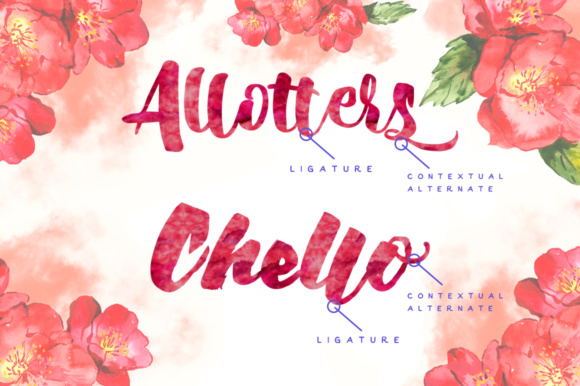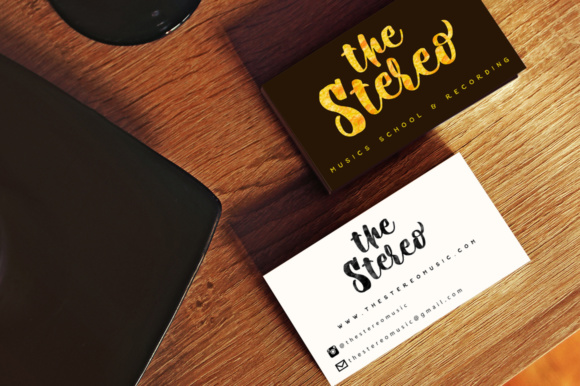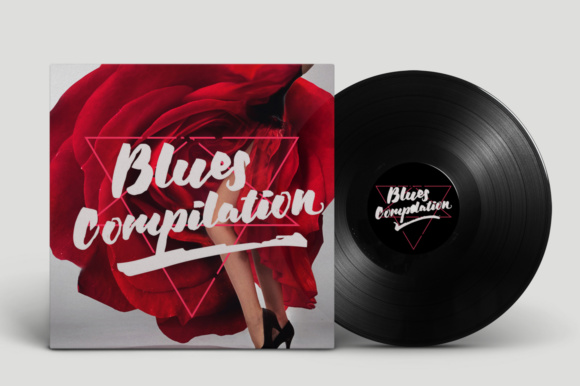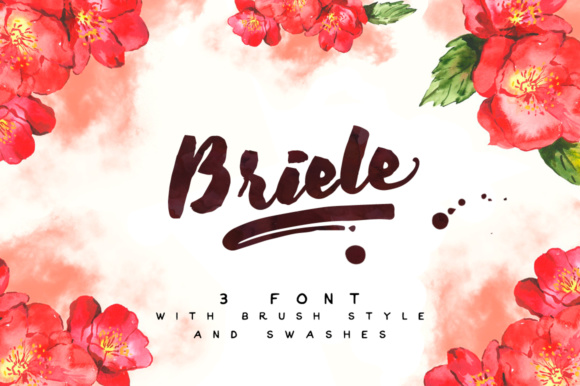
Introducing Briele Font: Elevate Your Designs with Elegance and Versatility
Are you a designer or crafter looking for a font that can add a touch of sophistication and elegance to your projects? Look no further than the Briele Font, an incredibly versatile brush font pack that is sure to take your designs to the next level. With its three unique styles and over 23 elegant swashes, Briele Font is the perfect choice for anyone looking to add a striking look to their creations.
What Makes Briele Font So Special?
Briele Font is more than just a font – it’s a comprehensive design tool that offers a range of possibilities for creative expression. Here are just a few of the features that make Briele Font stand out:
- Three Unique Styles: Briele Font comes with three distinct styles, each with its own character and charm. Whether you’re looking for a classic and elegant look or something more modern and bold, Briele Font has got you covered.
- Over 23 Elegant Swashes: Add a touch of sophistication to your designs with Briele Font’s extensive range of swashes. From simple and understated to elaborate and ornate, these swashes offer endless possibilities for creative expression.
- Versatility: Briele Font is incredibly versatile, making it perfect for a wide range of design applications, from logos and branding to invitations and packaging.
Briele Font is designed with designers and crafters in mind. Whether you’re a professional designer or a DIY enthusiast, this font pack offers everything you need to create stunning designs that are sure to impress. Here are just a few ways you can use Briele Font:
- Logos and Branding: Create a professional and cohesive brand identity with Briele Font’s elegant and sophisticated lettering.
- Invitations and Stationery: Add a touch of elegance to your invitations, cards, and other stationery with Briele Font’s beautiful swashes and lettering.
- Packaging: Stand out on the shelves with Briele Font’s bold and eye-catching lettering, perfect for product packaging and labels.
Tips for Getting the Most Out of Briele Font
To get the most out of Briele Font, here are a few tips to keep in mind:
- Experiment with Different Styles: Don’t be afraid to try out different styles and combinations of swashes to find the look that works best for your design.
- Play with Size and Color: Briele Font looks great in a range of sizes and colors, so don’t be afraid to experiment and find the combination that works best for your design.
- Use it with Other Fonts: Briele Font pairs well with a range of other fonts, so feel free to get creative and experiment with different combinations.
| Font Name | Briele Font |
| Author | Hart Foundry |
In conclusion, Briele Font is an incredibly versatile brush font pack that offers designers and crafters a range of possibilities for creative expression. With its three unique styles, over 23 elegant swashes, and endless possibilities for customization, Briele Font is the perfect choice for anyone looking to add a touch of elegance and sophistication to their designs. So why wait? Download Briele Font today and start elevating your designs to the next level!
- Three unique styles
- Over 23 elegant swashes
- Incredibly versatile
- Perfect for logos, branding, invitations, packaging, and more